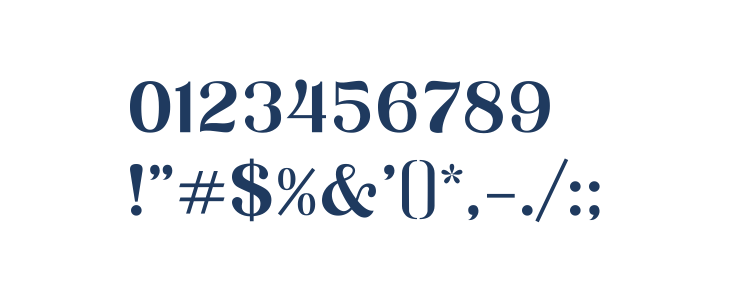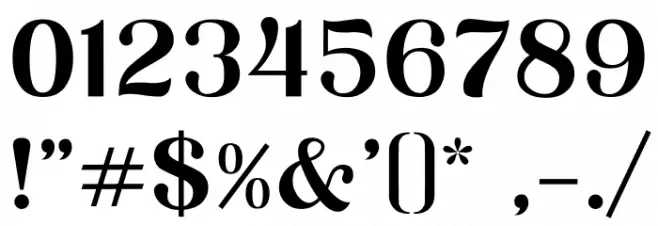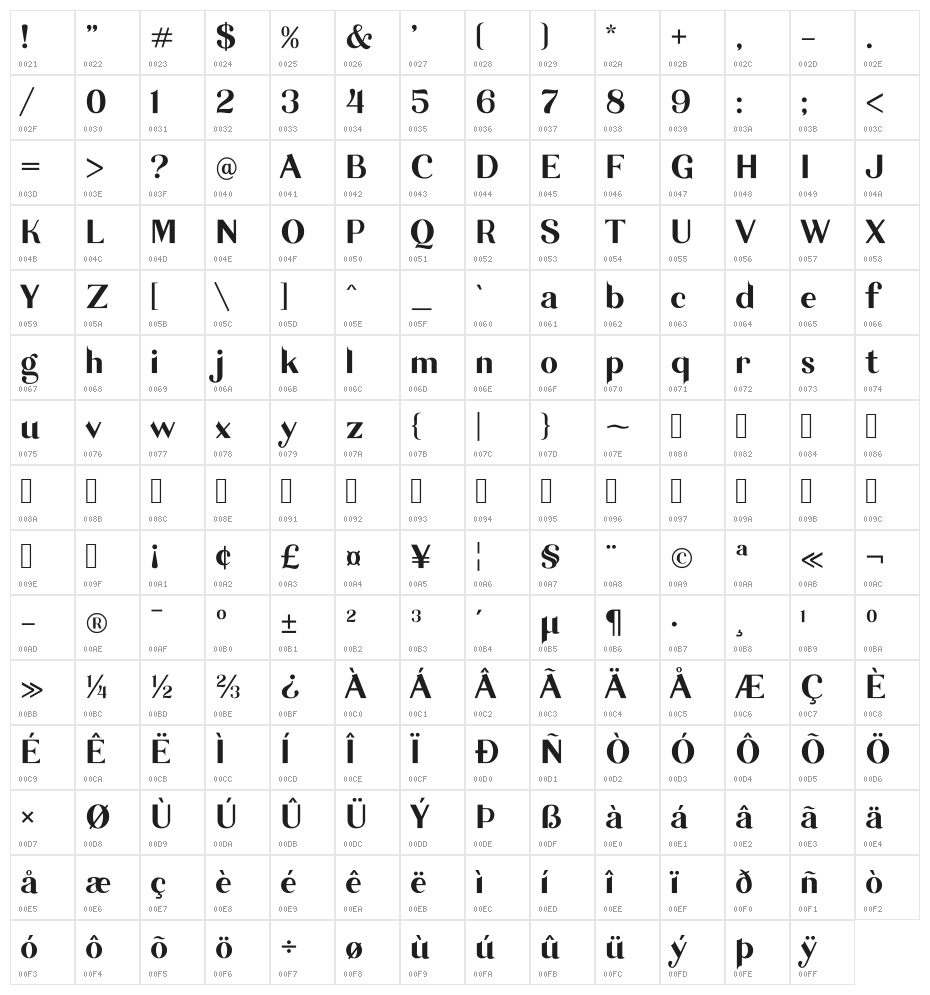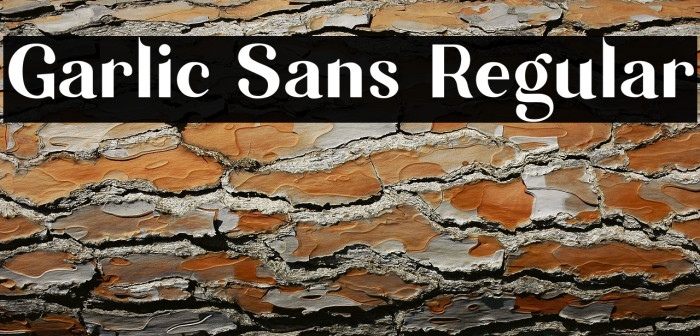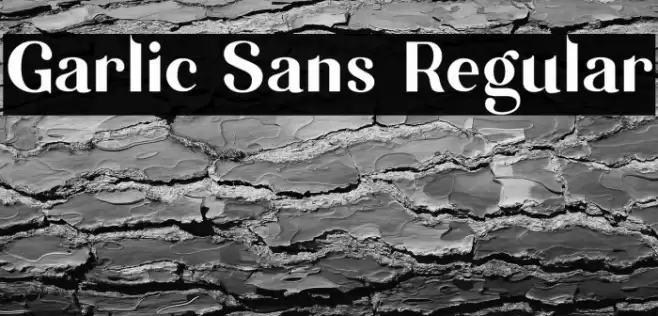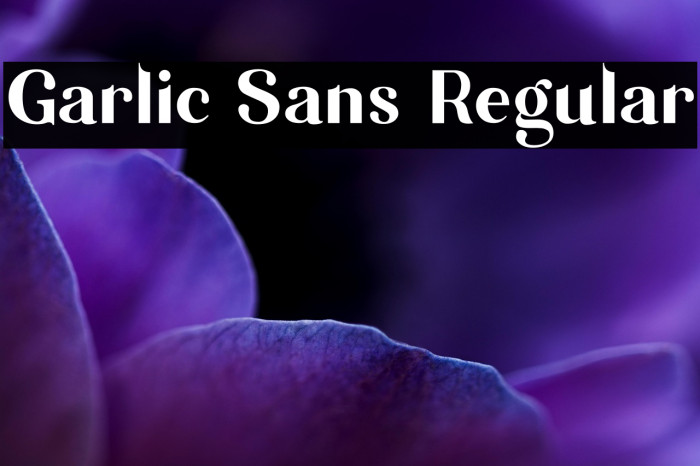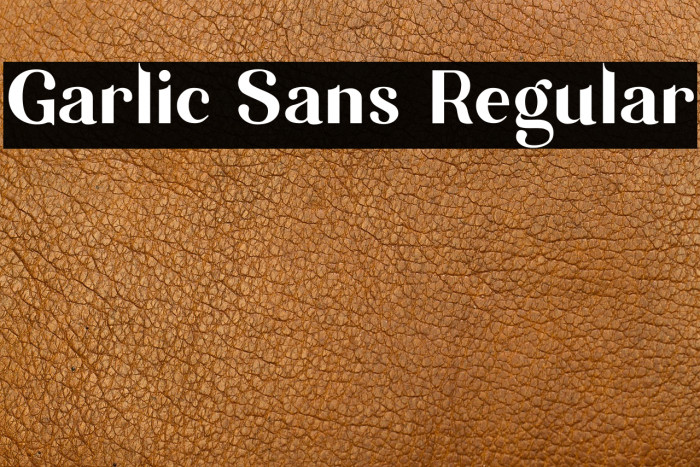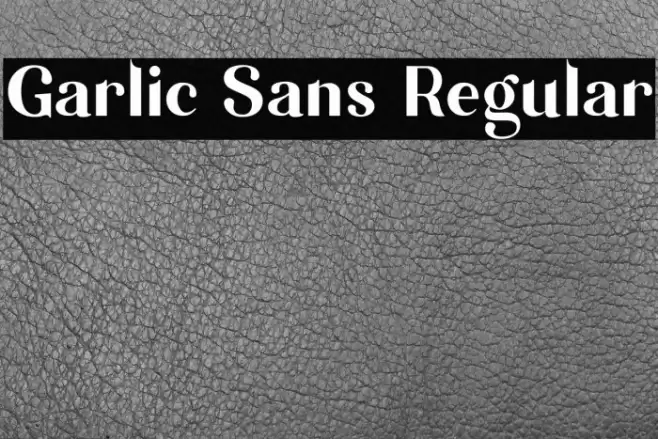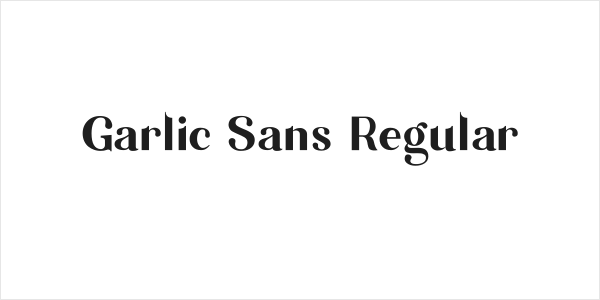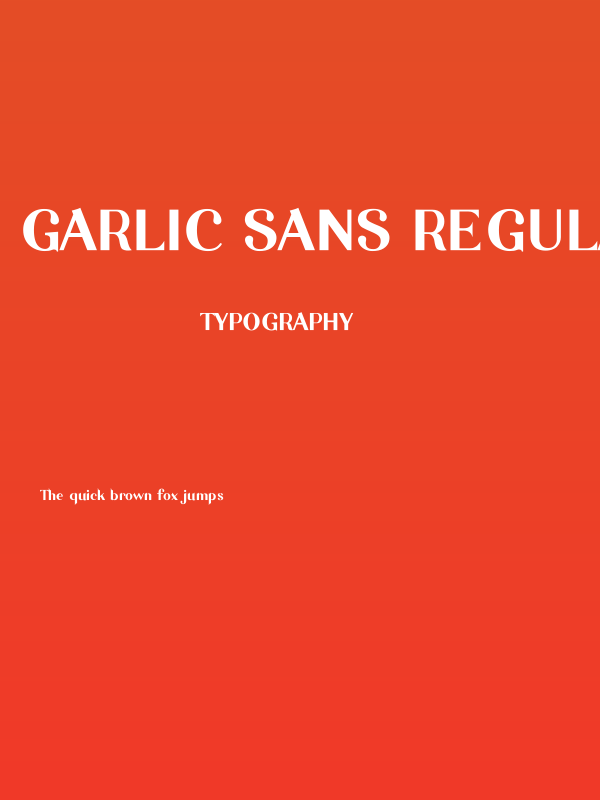
Garlic Sans Regular Font
Garlic Sans Regular Description
This font features a bold and dynamic serif style with a modern twist. The characters exhibit a strong presence with thick strokes and high contrast, making it highly legible and impactful. The uppercase letters are robust and commanding, while the lowercase letters maintain a consistent flow with slightly rounded edges. The numerals are clear and distinct, ensuring readability in various contexts. Special characters are well-integrated, maintaining the overall aesthetic of the typeface. The design is versatile, suitable for both digital and print media, offering a contemporary yet timeless appeal.
| Use Case | Headlines, Logos, Editorial design |
| Proposed Projects | Ideal for branding, editorial design, advertising, and packaging projects. |